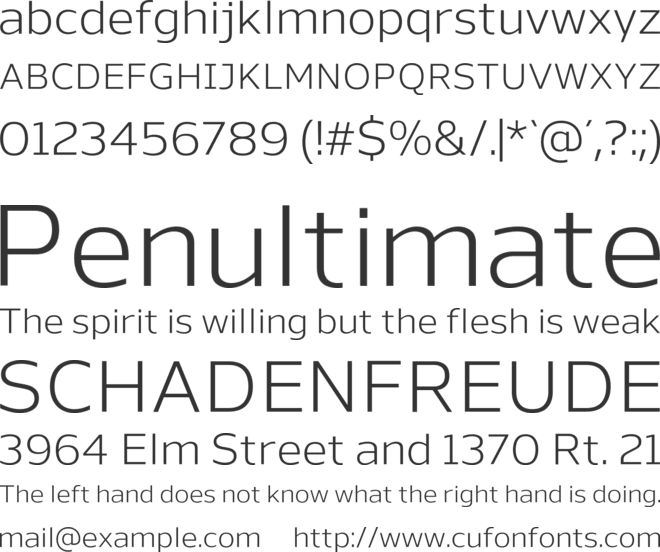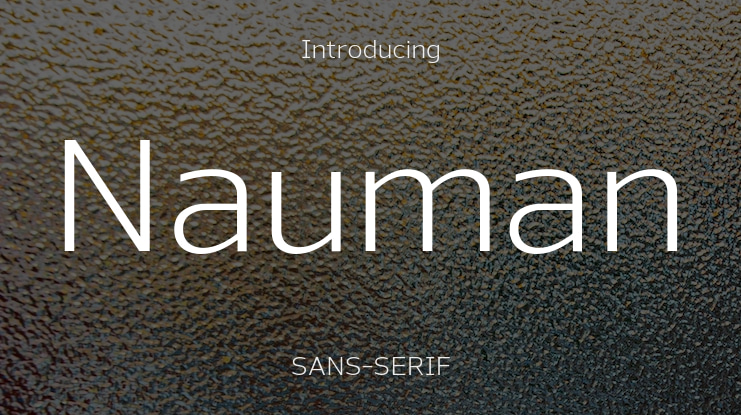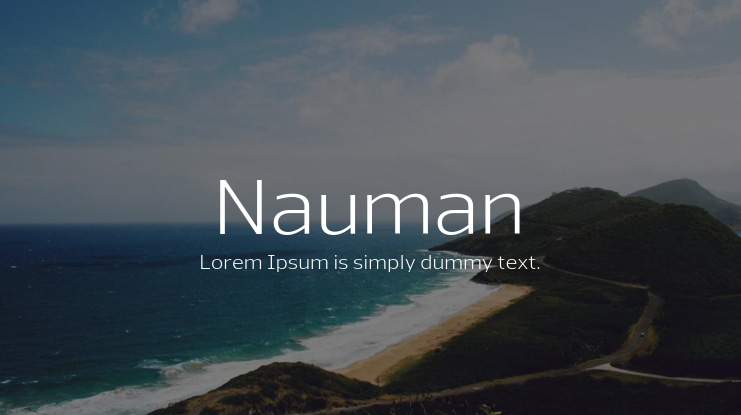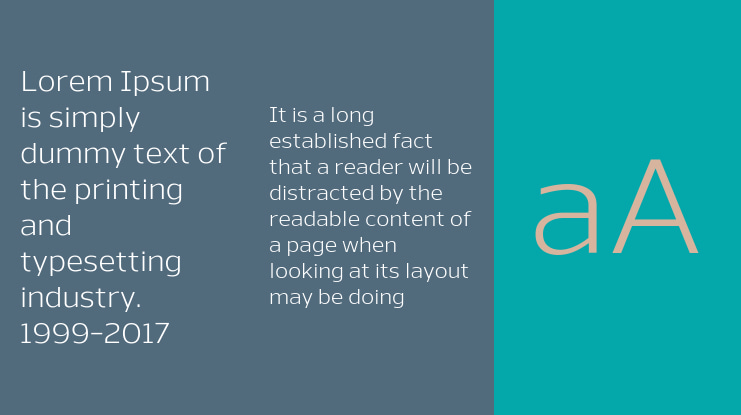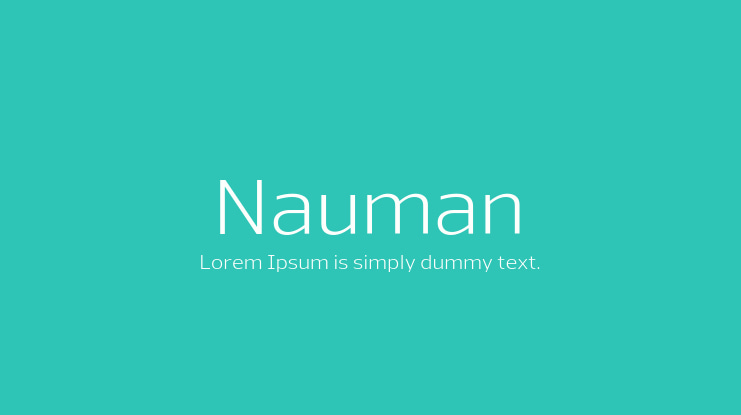
Nauman Font
Jonathan Hill
Nauman Regular is a contemporary humanist sans-serif font designed specifically for digital use. Its wide and open letter shapes are crafted with meticulous geometry, resulting in a practical and easy-to-read typeface perfect for online and on-screen content. This font boasts an extensive character set of over 900 glyphs, alongside Opentype functionalities such as seven numeral styles (including inferiors, superiors, fractions, tabular, lining, and old style), alternate lowercase options for select letters, small caps, arrows, and language support for Western, South, Central European, and Vietnamese languages.